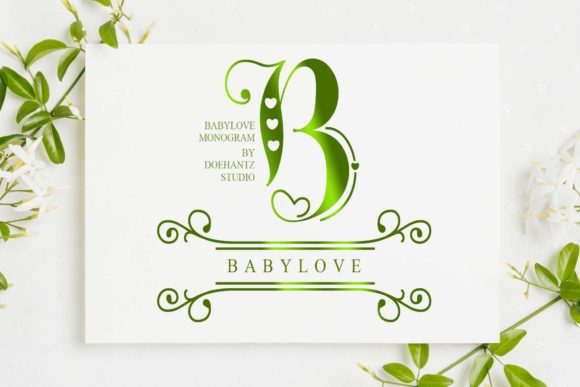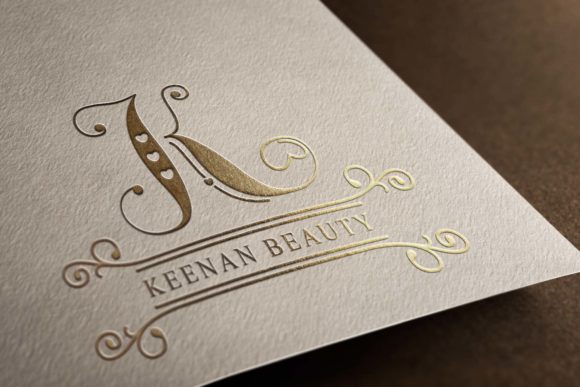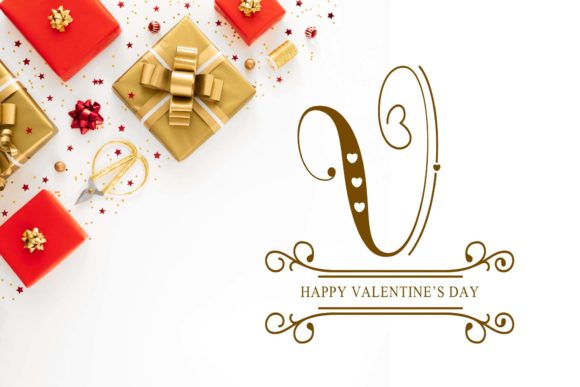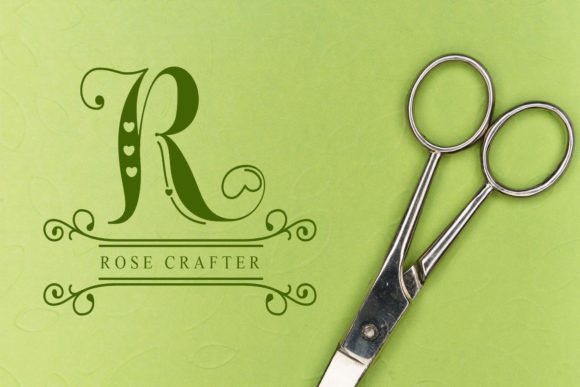
Babylove Monogram Font
About the Babylove Monogram Font
The wait is over! The incredible Babylove Monogram Font is now available for your design toolkit. Babylove Monogram is a sweet decorative font. Fall in love with its authentic feel and use it to create gorgeous wedding invitations, beautiful stationary art, eye-catching social media posts, and cute greeting cards.
Babylove Monogram’s playful, yet elegant, style is ideal for projects requiring a touch of sweetness and personality. It excels in short-form applications such as logos, headlines, wedding stationery, and social media graphics. However, its decorative nature makes it unsuitable for body text or UI elements where readability is paramount. Avoid using it for lengthy paragraphs or in small sizes.
Pairing Babylove Monogram with a clean sans-serif like Lato or Open Sans provides a strong contrast, balancing its ornate details with modern simplicity. For a more classic feel, consider pairing it with a serif font like Garamond or Playfair Display. These pairings enhance readability and create a visually harmonious design.
The font’s overall personality is best described as charming and romantic, making it a perfect fit for brands associated with weddings, children’s products, or artisanal goods. Its decorative flourishes add a touch of whimsy without sacrificing sophistication.
Babylove Monogram Font Usage Examples
Babylove Monogram Font Example